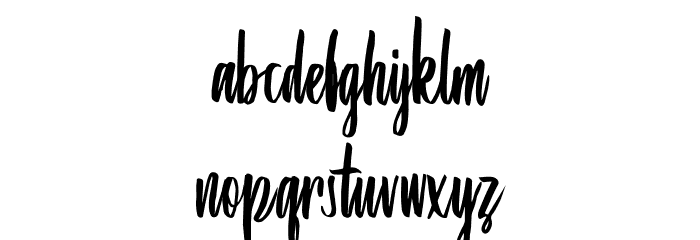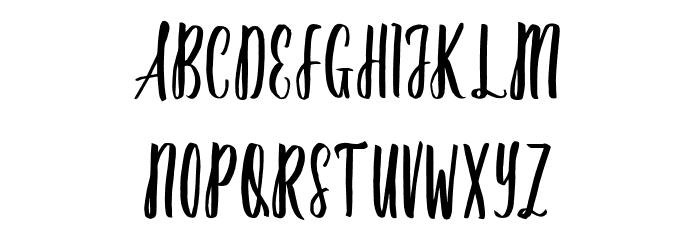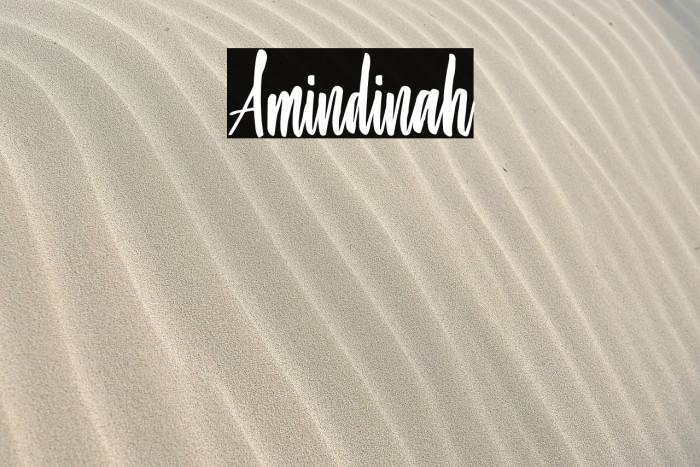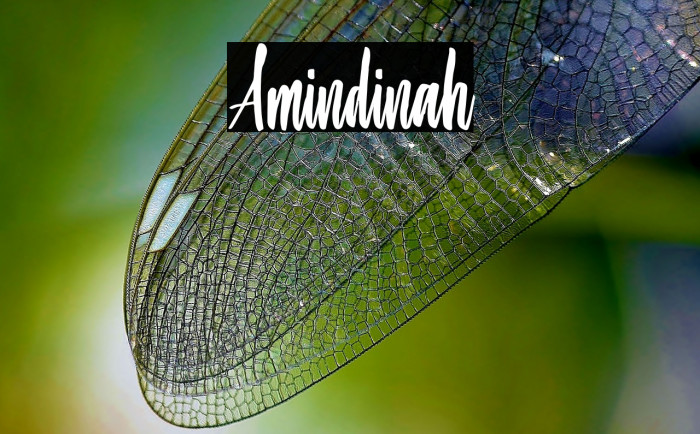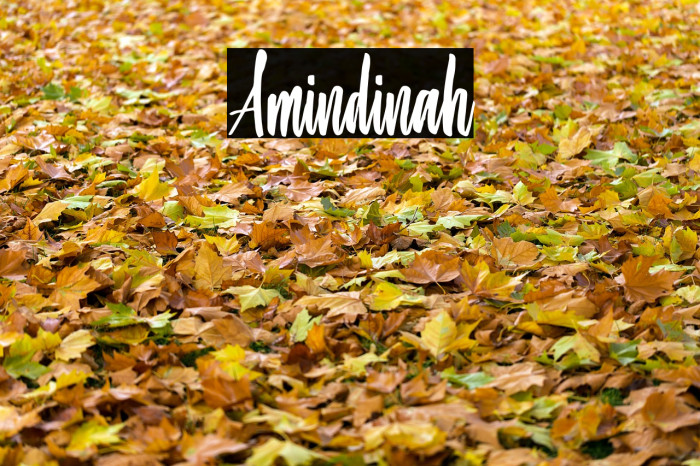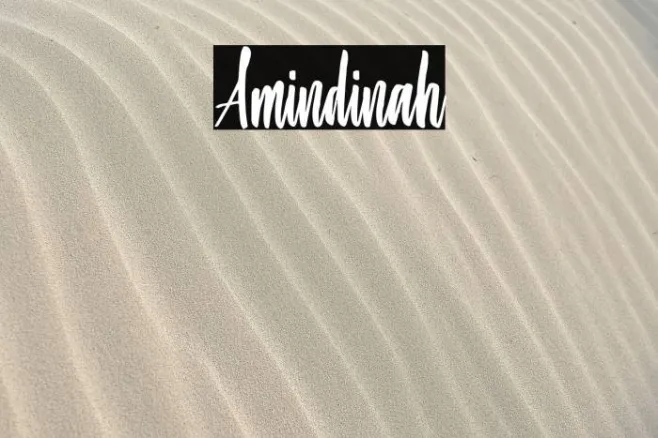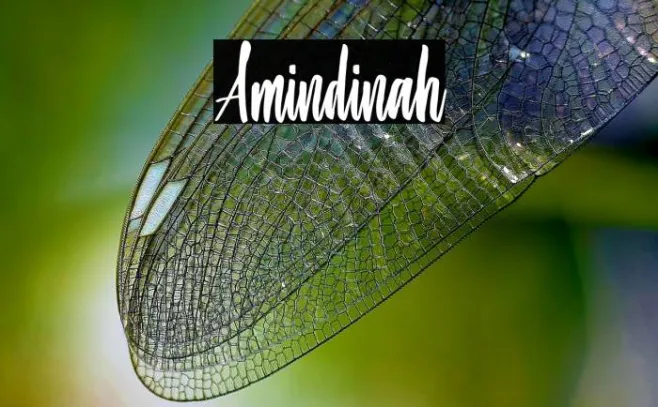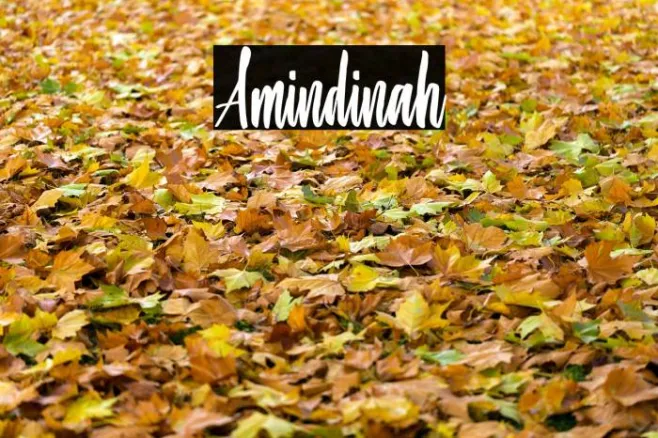
Amindinah Font
This font features a bold, flowing script style with a modern flair. The characters are connected, giving it a handwritten appearance that is both elegant and dynamic. The uppercase letters are tall and slightly narrow, while the lowercase letters maintain a consistent flow with smooth curves and loops. The overall design is expressive, with a playful yet sophisticated look that makes it suitable for a variety of creative projects. The font's unique style is perfect for adding a personal touch to any design.
A bold, flowing script font with a modern, handwritten style.
- Proposed Projects: Ideal for wedding invitations, greeting cards, branding, and social media graphics.
- Use Case: Logos, Headlines, Invitations